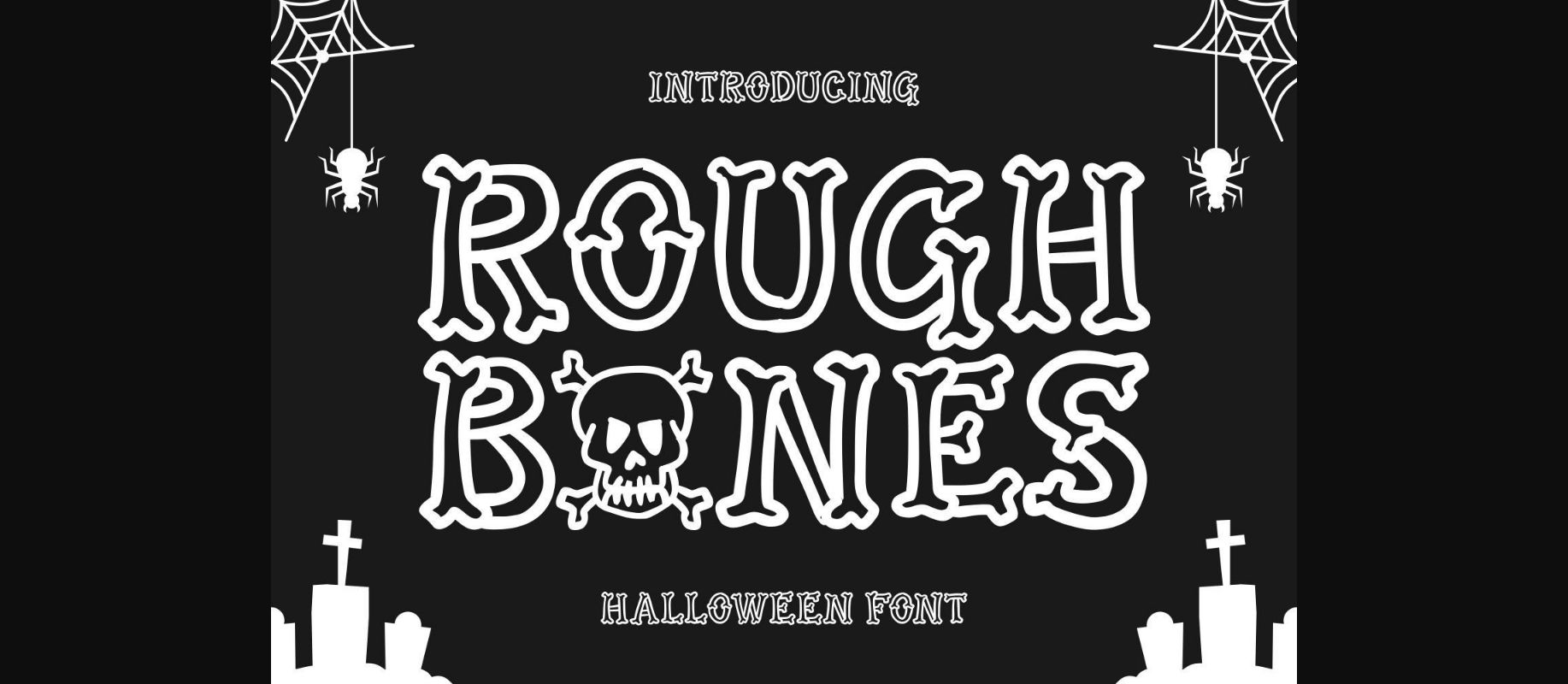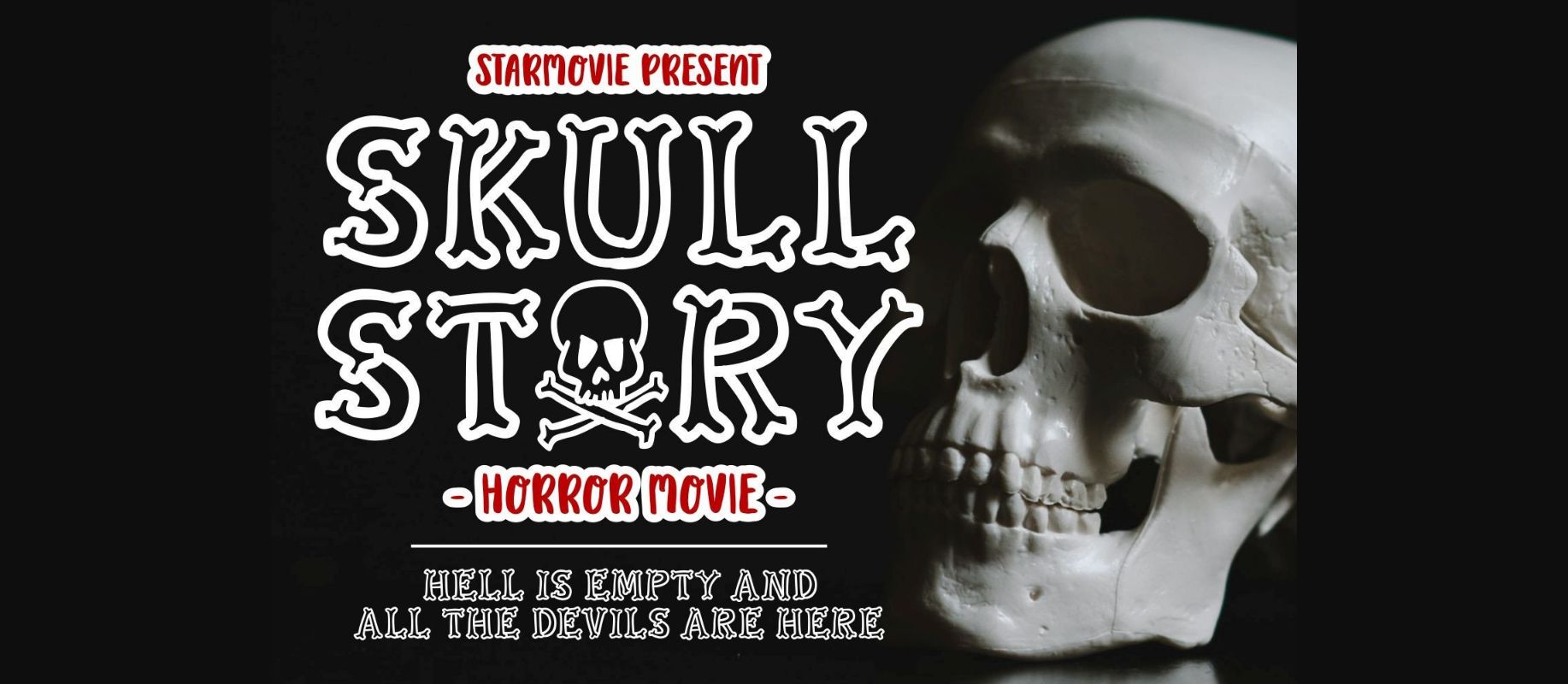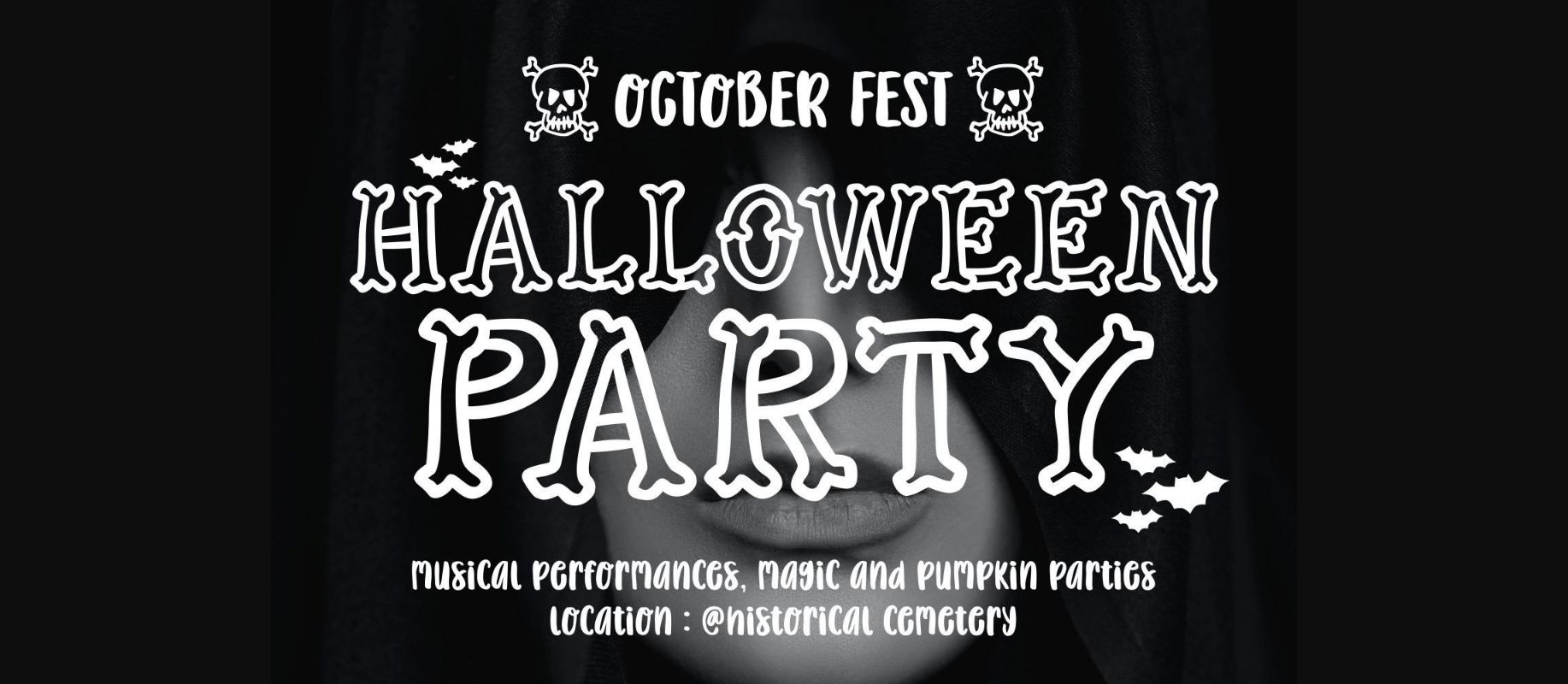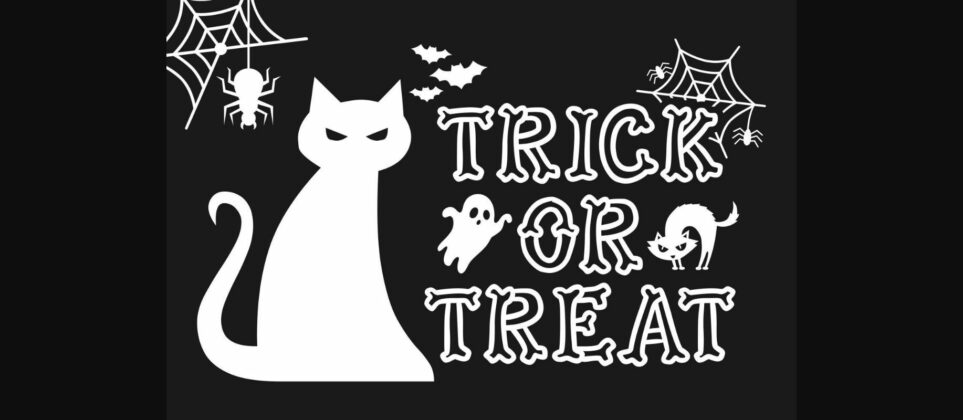
HomeDecorative FontsRough Bones Font Decorative Fonts Rough Bones Font FacebookXPinterestWhatsApp 1 of 6 ... Rough Bones Font Poster 2... Rough Bones Font Poster 3... Rough Bones Font Poster 4... Rough Bones Font Poster 5... Rough Bones Font Poster 6... About Rough Bones Font Rough Bones is a unique decorative font perfect for Halloween. Its unique outlined characters create an eerie feel, so everything you type looks magical, spooky, and ready for Halloween! DOWNLOAD NOW People also explored Daisy Girl Font Bordeaux Asttingkara Font Simplicity Font Vierra Font Hayda Font Highland Font Aarianna Font Natadon Font 297 0 TagsRough Bones Font Previous articleRocco FontNext articleBlob Font LEAVE A REPLY Cancel reply Comment: Please enter your comment! Name:* Please enter your name here Email:* You have entered an incorrect email address! Please enter your email address here Website: Save my name, email, and website in this browser for the next time I comment. Personal Use Free Drip October Font Personal Use Free Read more about this font BD Pipe Personal Use Free Read more about this font Clumed Personal Use Free Read more about this font Wordan Personal Use Free Read more about this font BLOG Free vs Paid Fonts: Why Investing in Premium Fonts Is Worth It Free vs Paid Fonts: Why Premium Fonts Are Worth It in 2025 The debate of free vs paid fonts continues in the design world. While... Using Fonts in Digital Marketing: Tips to Strengthen Your Brand Identity Free Fonts Risk: Why Free Fonts Can Be Dangerous for Designers The 10 Best Handwriting Fonts to Add Personality to Your Designs